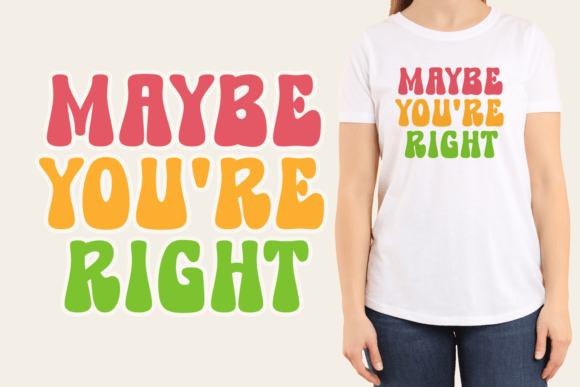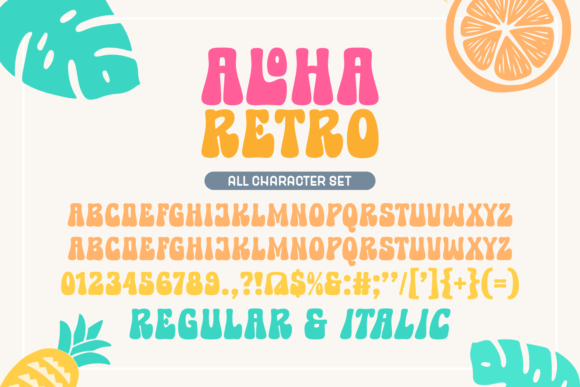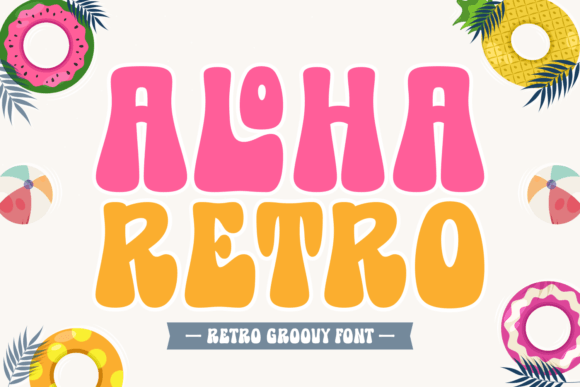
The Retro Charm of Aloha Retro Font
Have you ever been in the middle of a design project, and suddenly, you’re stuck on finding the perfect font? I recall a recent experience where I was working on a greeting card design, and my client specifically asked for a font that would give their project a romantic and exquisite feel. After hours of searching, I stumbled upon the Aloha Retro Font, and it instantly became the perfect fit. In this article, I’ll share my experience with this beautiful font, its features, and how you can make the most of it in your creative projects.
An Honest Review of Aloha Retro Font
Let’s dive into the good stuff first! Here’s what I love about Aloha Retro Font:
- ✨ Versatile and stylish: This font is perfect for a wide range of applications, from greeting cards to headlines, and more!
- ✅ Playful and romantic: Aloha Retro Font adds a touch of elegance and whimsy to any design project.
- 💡 PUA encoded: This means you can easily access all the amazing glyphs and ligatures, making it a breeze to create stunning designs.
Now, let’s talk about a few small quirks:
- 🤔 Limited use cases for body text: While Aloha Retro Font is amazing for headlines and titles, it might not be the best choice for body text due to its decorative nature.
A Practical Guide to Using Aloha Retro Font
The Designer Inspiration Behind Aloha Retro Font
The creator of Aloha Retro Font drew inspiration from the classic typography of the 1950s and 1960s, combined with a touch of modern playfulness. The result is a font that’s both nostalgic and fresh, perfect for designers looking to add a unique touch to their projects.
| Font Name | Aloha Retro Font |
| Author | Jasm (7NTypes) |
| Is Aloha Retro Font suitable for body text? | While Aloha Retro Font is amazing for headlines and titles, it’s not ideal for body text due to its decorative nature. |